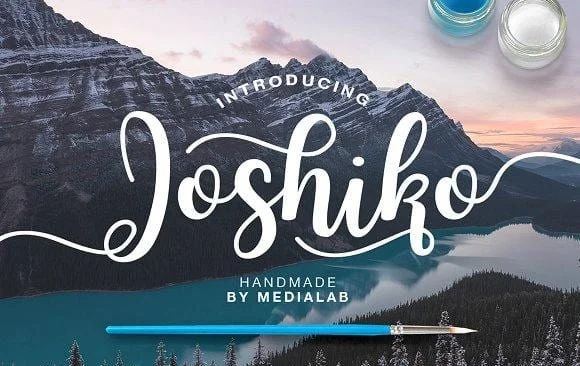
Joshico Font Free Download
Joshico Font is perfect for creative branding, modern logos, trendy social media graphics, fashion magazines, lifestyle blogs, contemporary posters, artistic packaging, boutique signage, creative portfolios, editorial headlines, innovative advertisements, and stylish web design projects.
What makes Joshico Font exciting is its distinctive personality that seamlessly blends artistic flair with contemporary sophistication, creating a typeface that stands out in today's crowded design landscape. This captivating font features unique character shapes and carefully balanced proportions that convey creativity and innovation while maintaining excellent readability across various applications. The font's modern aesthetic and creative energy make it perfect for brands that want to communicate originality and forward-thinking vision. Its versatile design language adapts beautifully to both digital and print environments, ensuring consistent brand expression across all touchpoints.
The Joshico Font family includes regular and bold weights, featuring stylistic alternates, creative ligatures, and distinctive character variations. The character set incorporates artistic elements, expressive numerals, and unique punctuation marks that enhance the font's creative personality and provide designers with extensive typographic flexibility.
Whether you're developing innovative brand identities, designing creative campaigns, or crafting artistic publications, Joshico Font Free Download provides the distinctive character your creative projects need to make lasting impressions. This premium typeface excels in applications where personality and memorability are crucial for brand differentiation and audience engagement. The font's artistic qualities work exceptionally well across digital platforms and print media, making it an invaluable asset for designers seeking to create memorable visual experiences. Creative agencies and innovative brands choose this font for its ability to convey originality while maintaining professional quality standards. The comprehensive character support includes international symbols and special glyphs, expanding its usability for global creative projects and multilingual applications. Professional designers appreciate its balance of creativity and functionality, ensuring projects remain both visually striking and highly readable. When you incorporate this exceptional typeface into your creative work, you're selecting a typography solution that combines artistic expression with technical excellence, helping your brand communicate innovation and creativity while establishing strong visual identity that resonates with contemporary audiences and stands out in competitive creative markets.